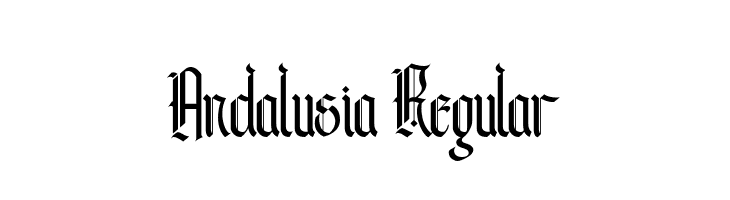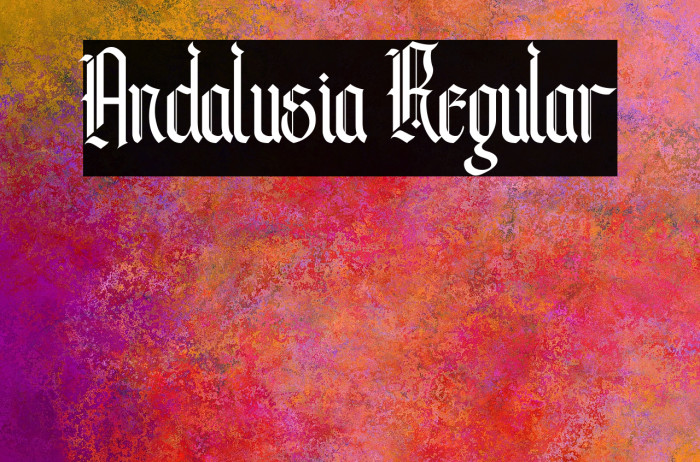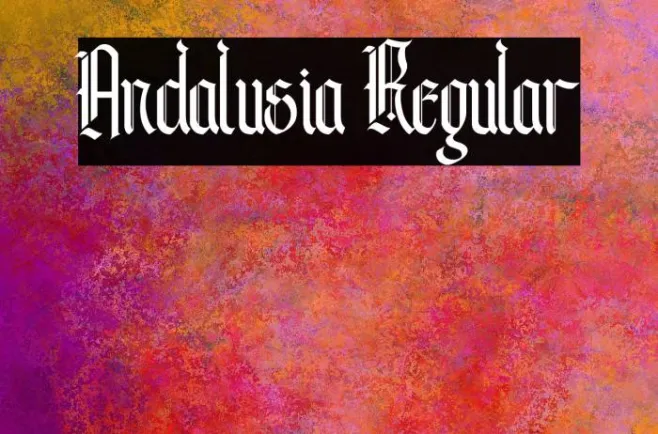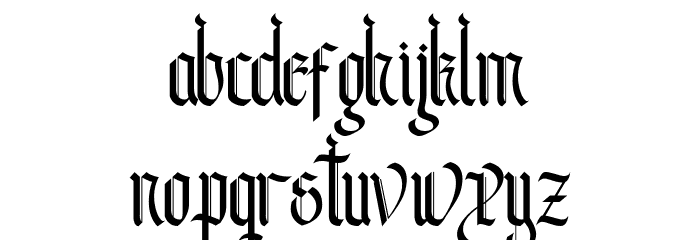
Andalusia Regular Font
This font exudes a classic and ornate style reminiscent of traditional calligraphy and Gothic influences. The uppercase letters are characterized by sharp, angular lines and intricate detailing, giving them a majestic and formal appearance. The lowercase letters maintain a similar aesthetic with a slightly more fluid and connected form, adding a touch of elegance. The numerals are bold and consistent with the overall theme, featuring distinctive curves and edges. Special characters are designed with the same attention to detail, ensuring a cohesive look across all glyphs. This font is ideal for projects that require a historical or sophisticated touch, such as invitations, certificates, or branding for luxury products.
A classic, ornate font with Gothic influences and intricate detailing.
• Proposed Projects: Ideal for invitations, certificates, luxury branding, and historical-themed designs.
• Category: Blackletter
• Overall Style: Classic
• Use Case: Headlines, Logos